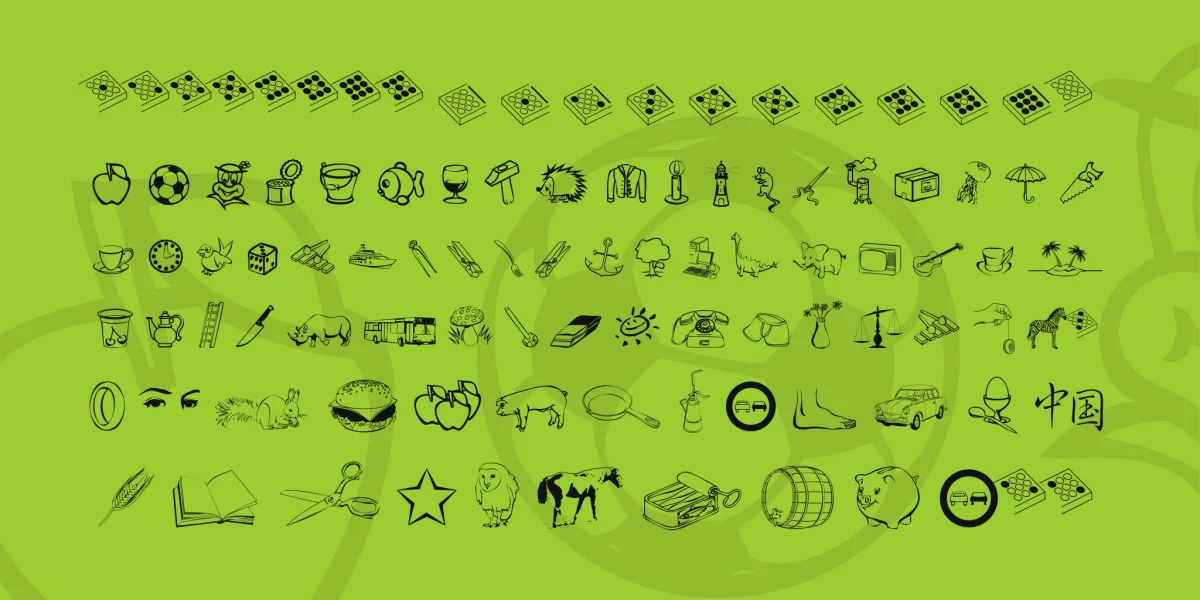
Translated from the original German description: Alfa Images is a so-called initial sound character set, ie a font that does not consist of letters, but from drawings of things that begin with each sound. In addition, some end of a word and diphthongs are (ei au, eu) are considered. On numbers and punctuation symbols are divided in two dominoes so from 0-0 to 9-9, any image can represent. They are used for counting and arithmetic exercises.